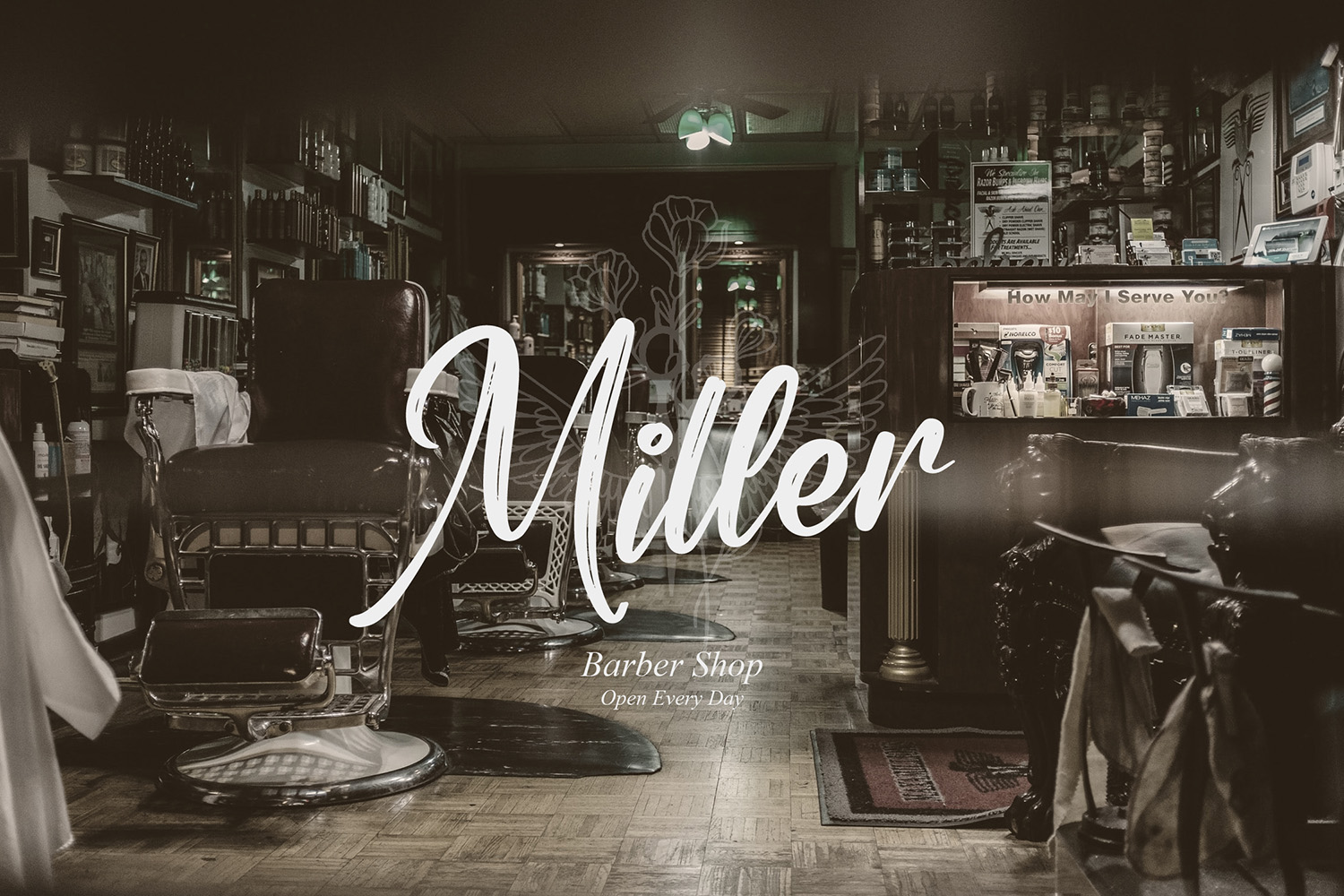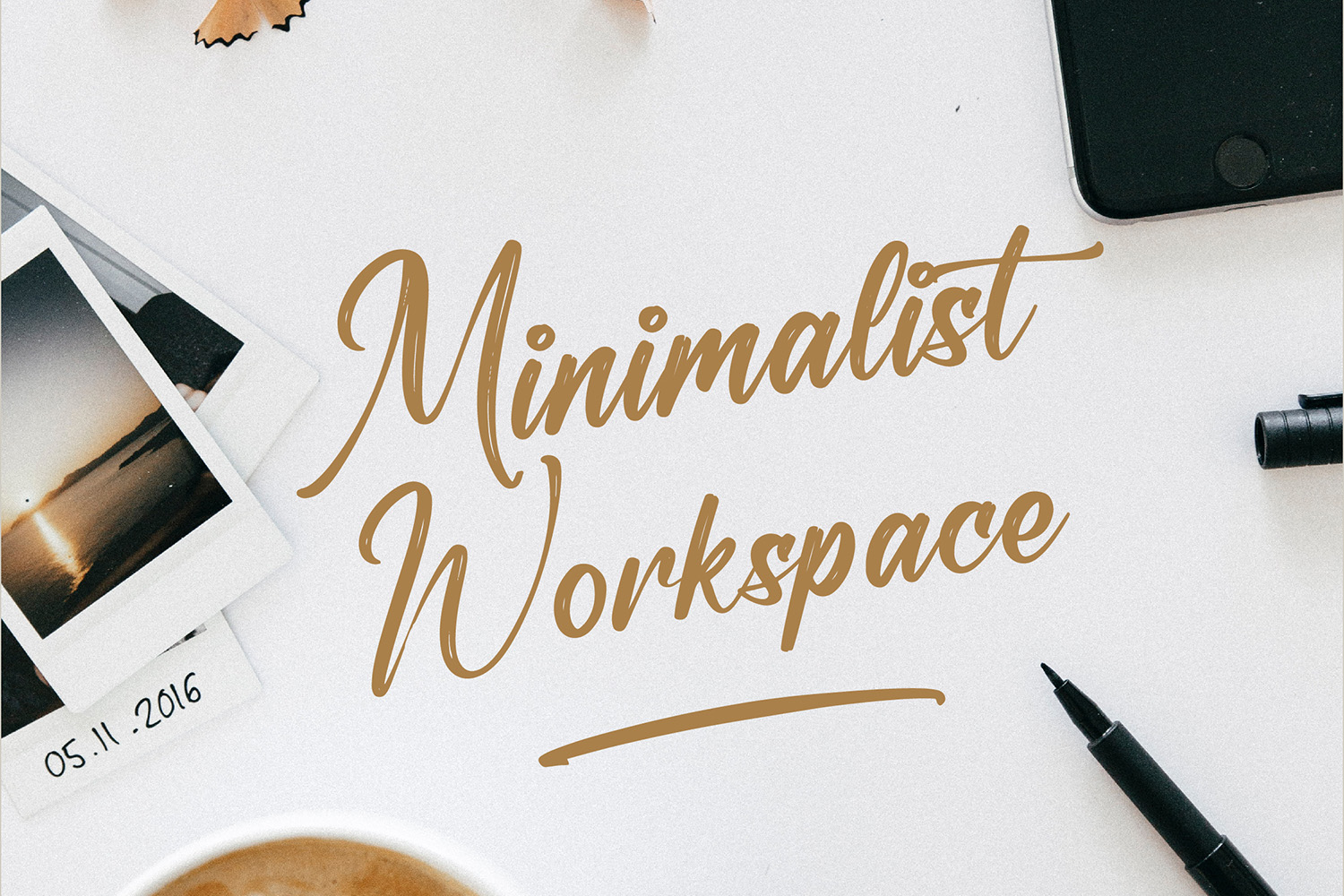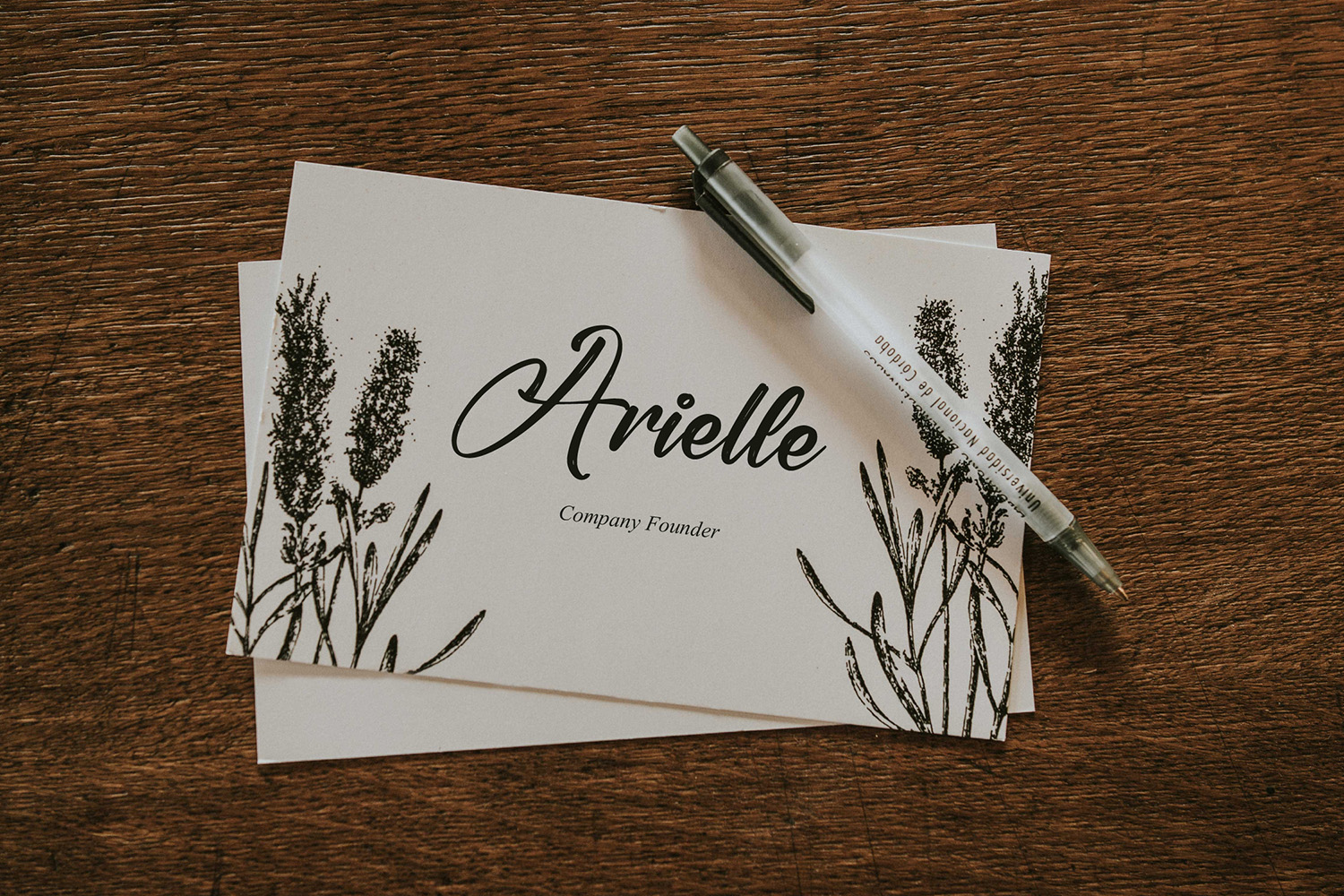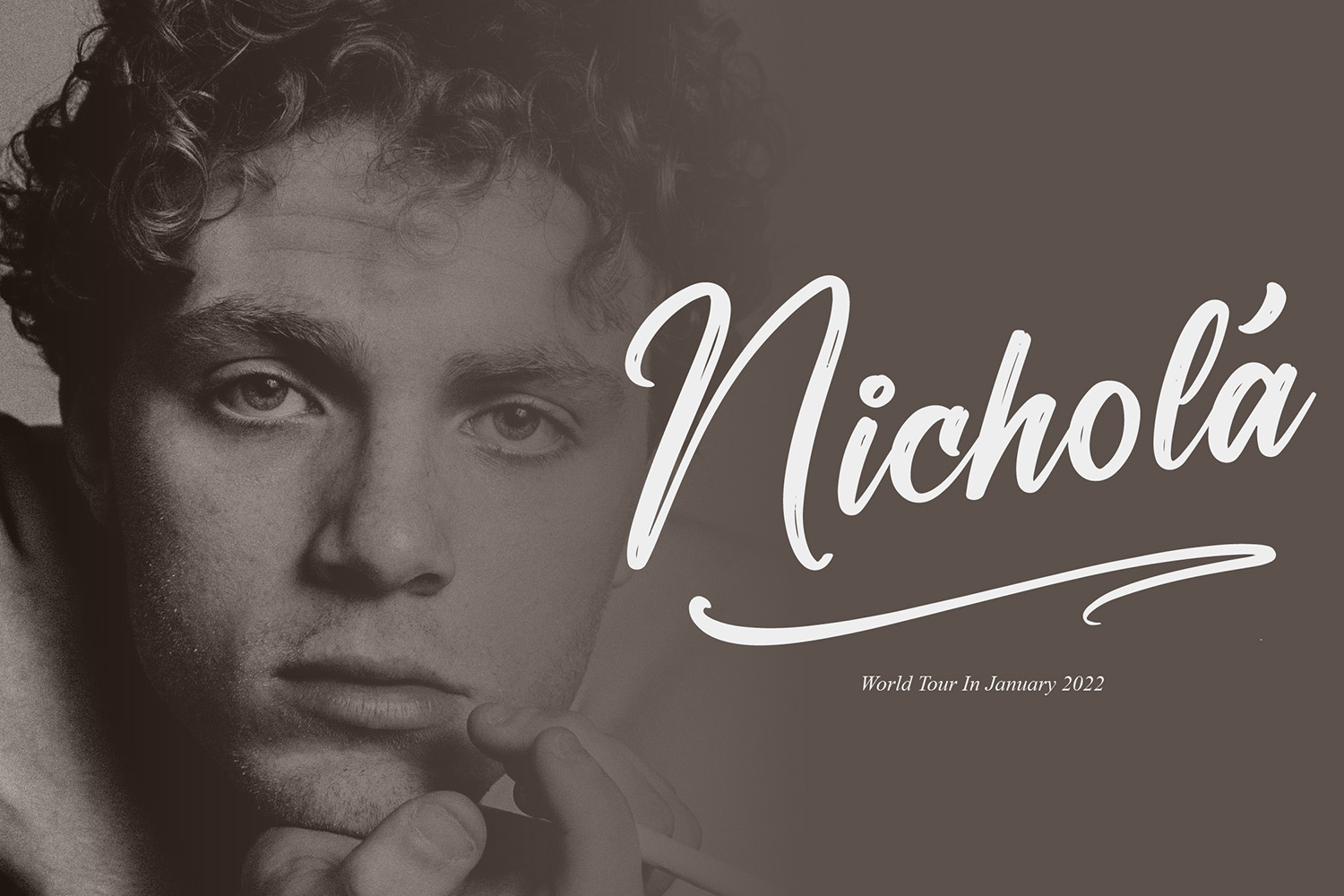
Anthony Hunters Free Font
Immerse yourself in the elegance of Anthony Hunters Free Font, a superbly crafted handwritten font, meticulously designed to become an instant classic. Retaining its refined calligraphic essence, the typeface seamlessly blends modern freshness. Let your admiration grow and elevate your projects to unparalleled excellence with this font. This free typeface was designed by a talented Glorytype Studio. If you like it don’t forget to check out the full version.